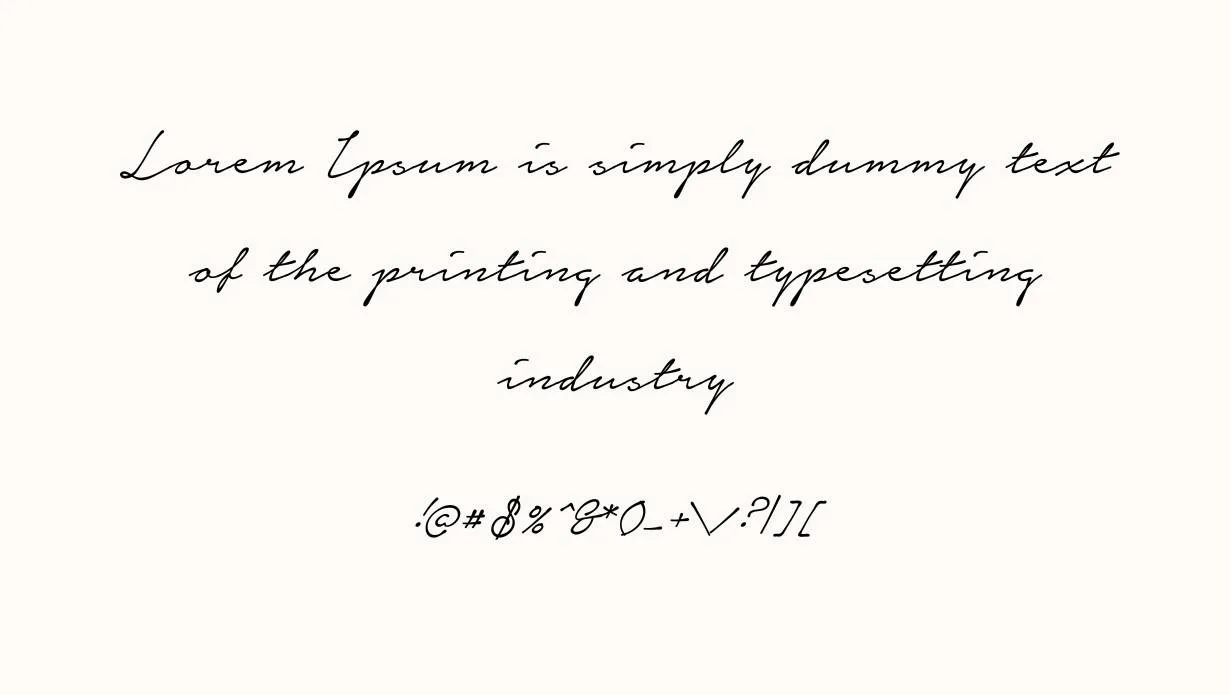
Notera Handwritten Script Font is a casual and friendly script typeface that captures the natural flow of handwriting.
It’s often used in personal blogs, product packaging, and branding materials, creating an informal and approachable atmosphere in design. When it comes to supporting foreign languages, the typeface family stands out and showcases its true potential when paired with decorative fonts like My bestie font.
Notera Handwritten Script Font Family